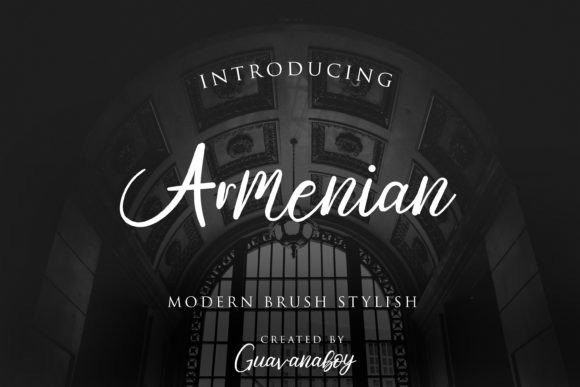
Introducing Armenian Font: A Gorgeous and Bold Handwritten Font
The Armenian font is a stunning and bold handwritten font that has been crafted to add a stylish touch to your headlines and logotype projects. This font exudes strength, confidence, and dynamism, making it the perfect choice for designers looking to add a nostalgic character to their designs.
What is Armenian Font?
The Armenian font is a type of handwritten font that is inspired by traditional Armenian calligraphy. It features bold and expressive letterforms that are designed to make a statement. The font is perfect for use in headlines, logotypes, and other design projects where a strong and confident look is desired.
Key Features of Armenian Font
The Armenian font has several key features that make it stand out from other fonts. Some of its key features include:
- Bold and Expressive Letterforms: The Armenian font features bold and expressive letterforms that are designed to make a statement.
- Handwritten Style: The font has a handwritten style that gives it a personal and unique touch.
- Strong and Confident: The font exudes strength and confidence, making it perfect for use in headlines and logotypes.
- Nostalgic Character: The font has a nostalgic character that adds a touch of classic charm to your designs.
Uses of Armenian Font
The Armenian font is a versatile font that can be used in a variety of design projects. Some of the most common uses of the font include:
- Headlines: The font is perfect for use in headlines where a strong and confident look is desired.
- Logotypes: The font is ideal for use in logotypes where a bold and expressive look is desired.
- Posters: The font can be used in posters to add a touch of classic charm and nostalgia.
- Brochures: The font can be used in brochures to add a touch of personality and style.
Benefits of Using Armenian Font
The Armenian font offers several benefits to designers. Some of the benefits of using the font include:
- Unique and Personal Touch: The font adds a unique and personal touch to your designs.
- Strong and Confident Look: The font exudes strength and confidence, making it perfect for use in headlines and logotypes.
- Nostalgic Character: The font has a nostalgic character that adds a touch of classic charm to your designs.
- Easy to Read: The font is easy to read, making it perfect for use in body text.
How to Use Armenian Font
Using the Armenian font is easy. Here are some tips on how to use the font:
- Use it in Headlines: Use the font in headlines to add a strong and confident look.
- Use it in Logotypes: Use the font in logotypes to add a bold and expressive look.
- Experiment with Colors: Experiment with different colors to add a touch of personality to your designs.
- Pair it with Other Fonts: Pair the font with other fonts to create a unique and interesting look.
Tips and Tricks
Here are some tips and tricks to help you get the most out of the Armenian font:
- Use it Sparingly: Use the font sparingly to avoid overwhelming your designs.
- Experiment with Different Sizes: Experiment with different sizes to add a touch of hierarchy to your designs.
- Use it in Combination with Images: Use the font in combination with images to add a touch of personality to your designs.
The Armenian font is a gorgeous and bold handwritten font that is perfect for use in headlines, logotypes, and other design projects. Its strong and confident look, nostalgic character, and unique and personal touch make it a great choice for designers looking to add a touch of style to their designs.
- Q: What is the Armenian font?
- A: The Armenian font is a gorgeous and bold handwritten font.
- Q: What is the font used for?
- A: The font is perfect for use in headlines, logotypes, and other design projects.
- Q: Is the font easy to read?
- A: Yes, the font is easy to read.